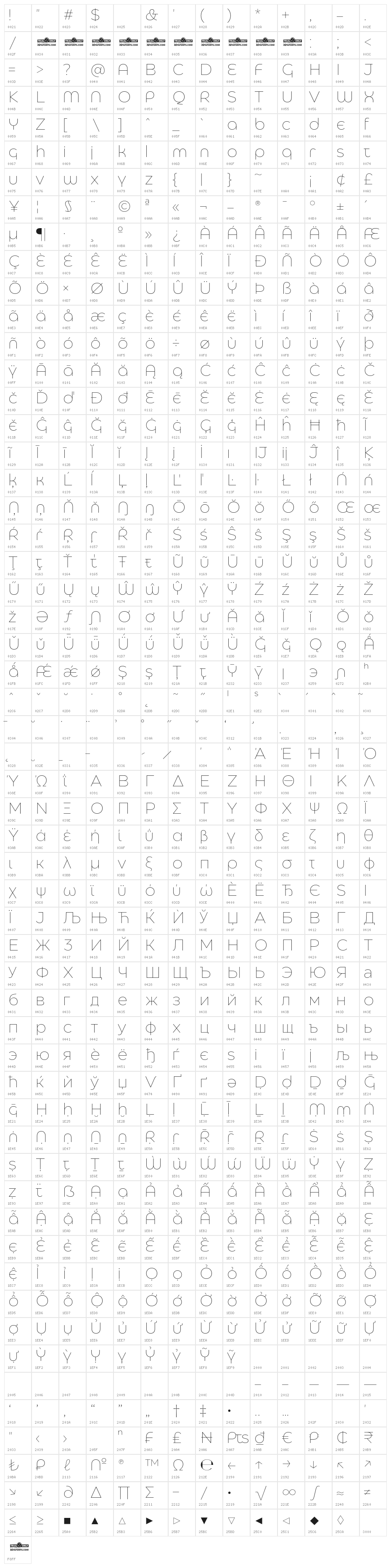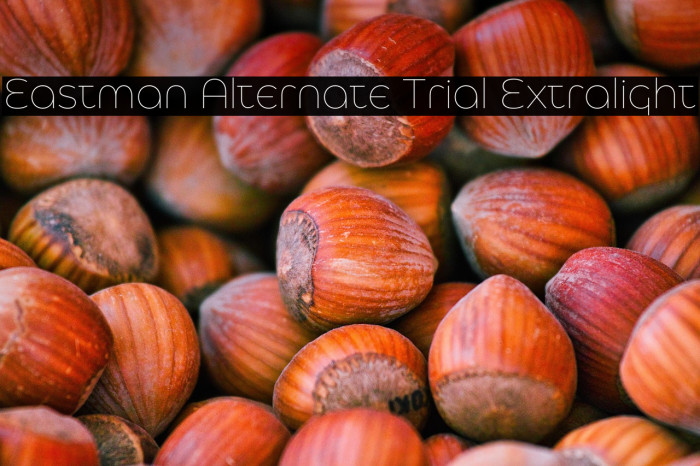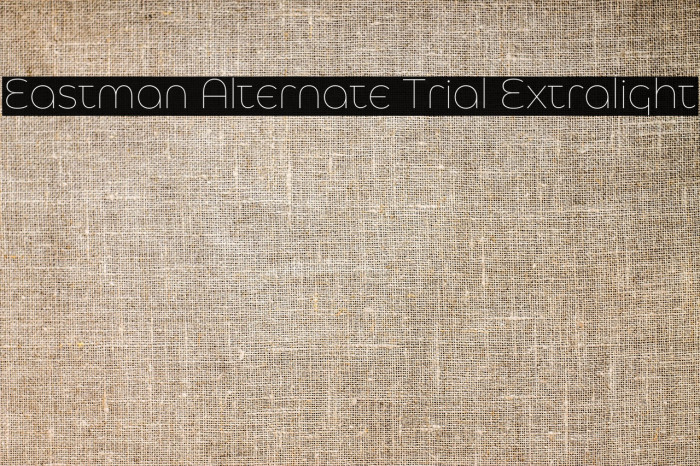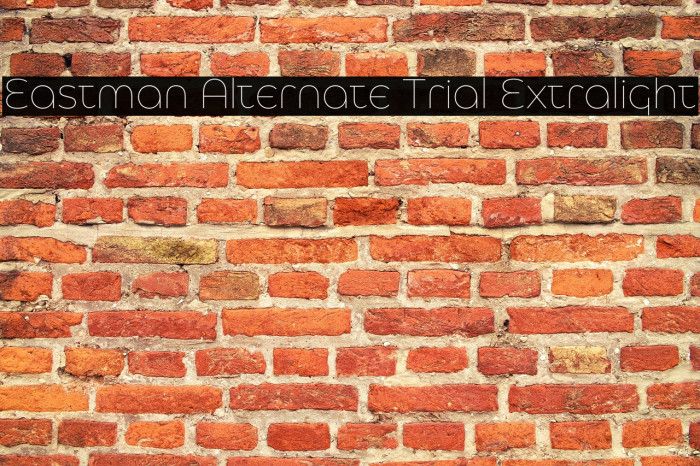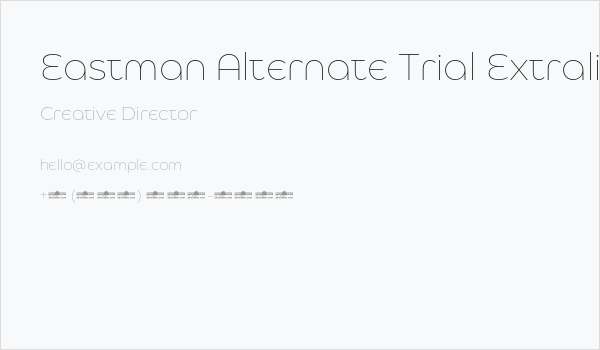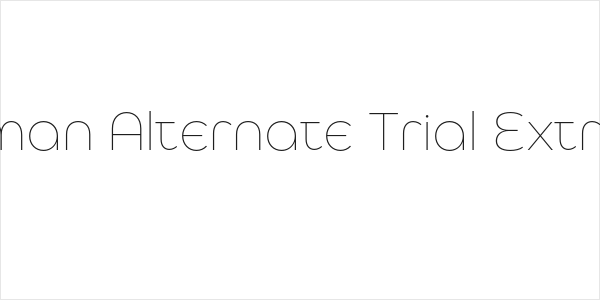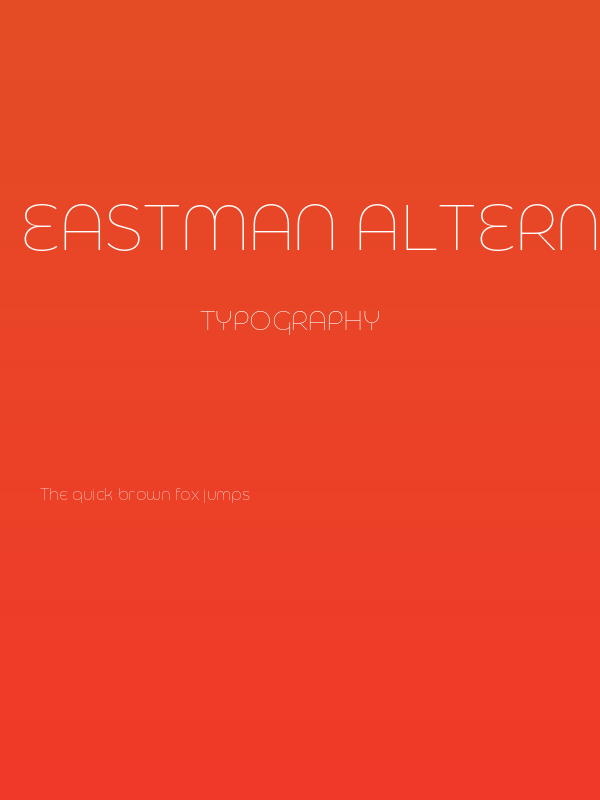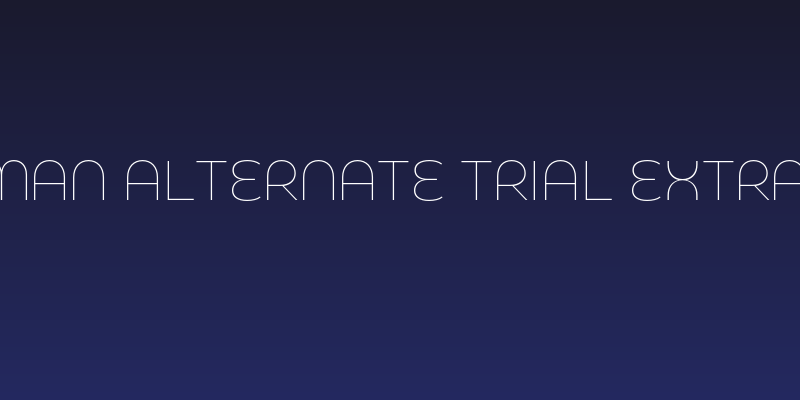
Eastman Alternate Trial Extralight Font
Eastman Alternate Trial Extralight Description
This font features a sleek, minimalistic design with thin, uniform lines that create a modern and elegant appearance. The characters are crafted with a geometric precision, offering a clean and sophisticated look. The uppercase and lowercase letters maintain a consistent style, with rounded edges and a balanced structure. The numerals and special characters complement the overall aesthetic, providing a cohesive and versatile typeface. Its simplicity and clarity make it suitable for a wide range of applications, from digital to print media.